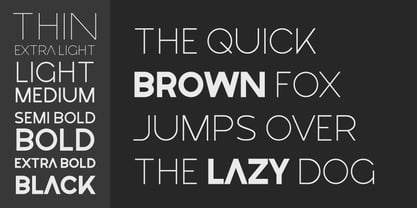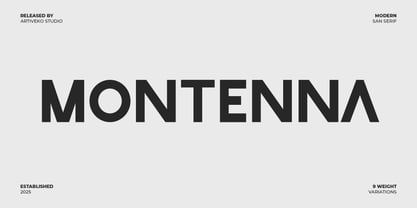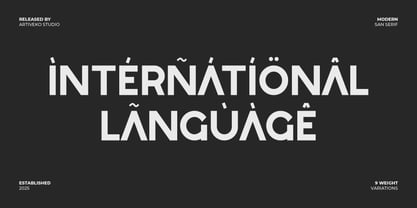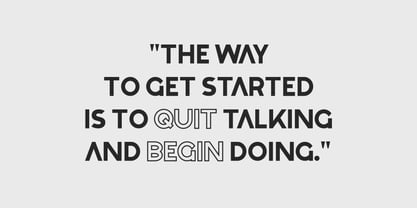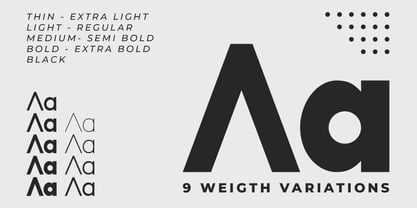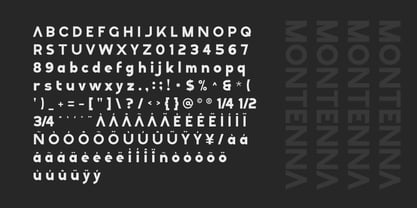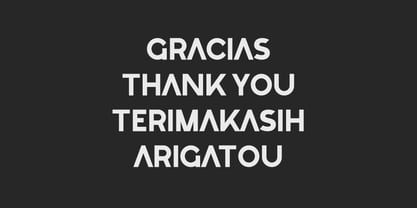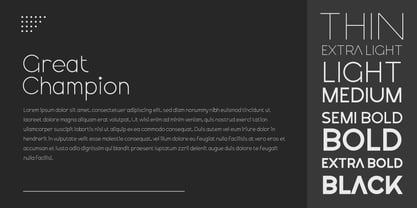
Montenna
by Artiveko
The Montenna Font Family was designed by Iwan Alwan and published by Artiveko. Montenna contains 9 styles and family package options.
Montenna is a modern sans serif font featuring sleek and balanced letterforms that blend simplicity with sophistication. Perfect for branding, editorial design, web interfaces, and corporate projects, Montenna offers a contemporary and professional aesthetic. With multilingual support, ligatures, and alternates, this versatile typeface ensures clarity and elegance, making it an excellent choice for designs that prioritize modernity and readability.